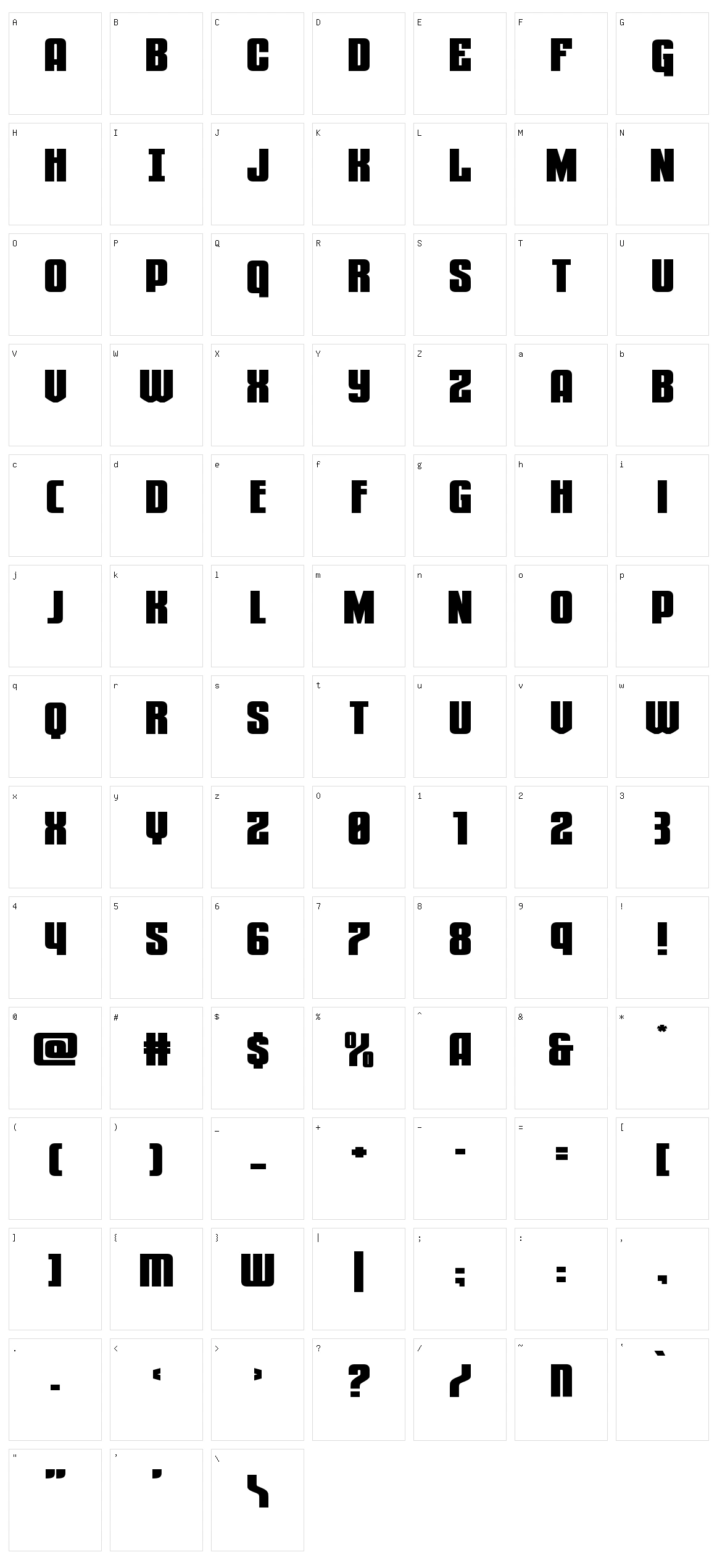
Special Agent Font
This font comes with the following 31 versions: Regular, Italic, Semi-Italic, Super-Italic, Leftalic, Semi-Leftalic, Condensed, Condensed Italic, Condensed Semi-Italic, Expanded, Expanded Italic, Expanded Semi-Italic, Xtra-Expanded, Xtra-Expanded Italic, Xtra-Expanded Super-Italic, Outline, Outline Italic, Oultine Semi-Italic, 3D, 3D Italic, 3D Semi-Italic, Laser, Laser Italic, Laser Semi-Italic, Laser-Super-Italic, Laser Leftalic, Laser Semi-Leftalic, Gradient, Gradient Italic, Halftone and Halftone Italic.